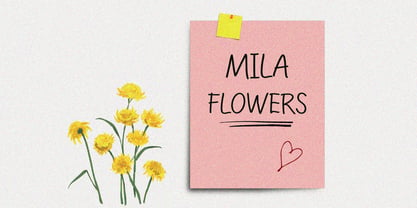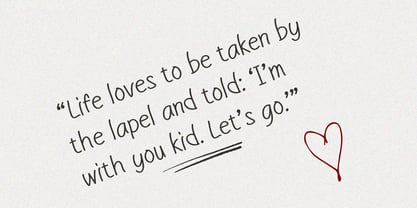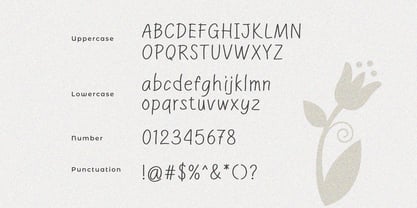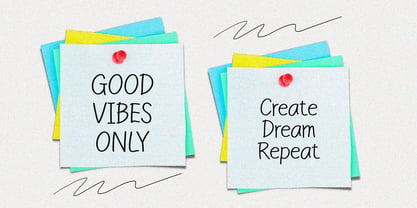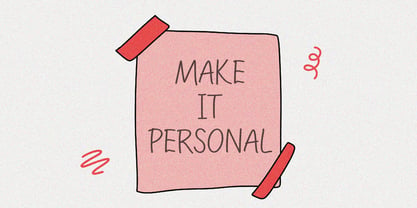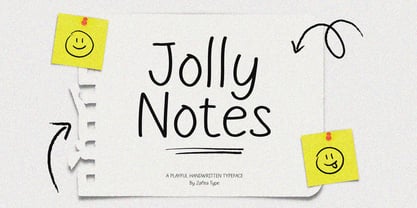
Jolly Notes
Jolly Notes is a playful handwritten typeface with a cheerful, casual, and expressive personality. Its simple, rounded letterforms and slightly irregular strokes create a natural handwritten feel with a fun and friendly character.
Perfect for designs that need a lighthearted and youthful touch, Jolly Notes works beautifully for branding, packaging, posters, stationery, greeting cards, social media content, and creative projects.